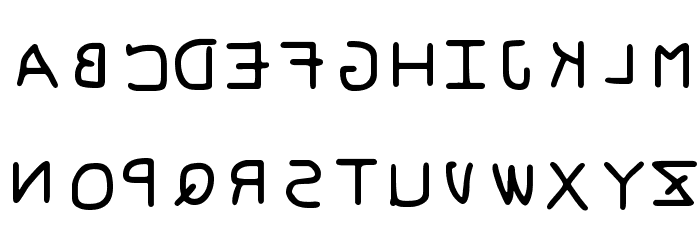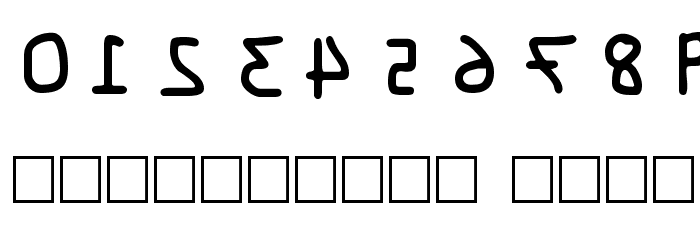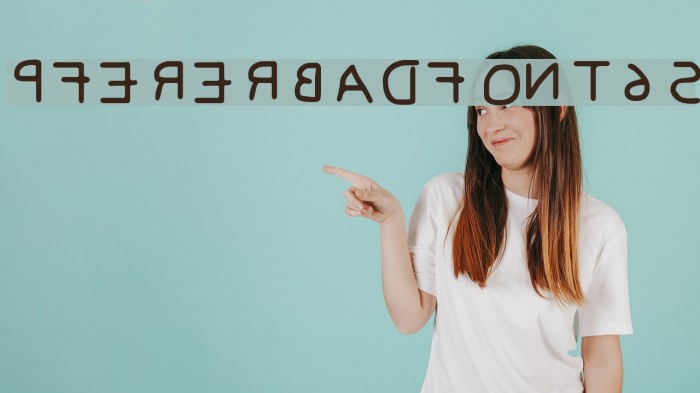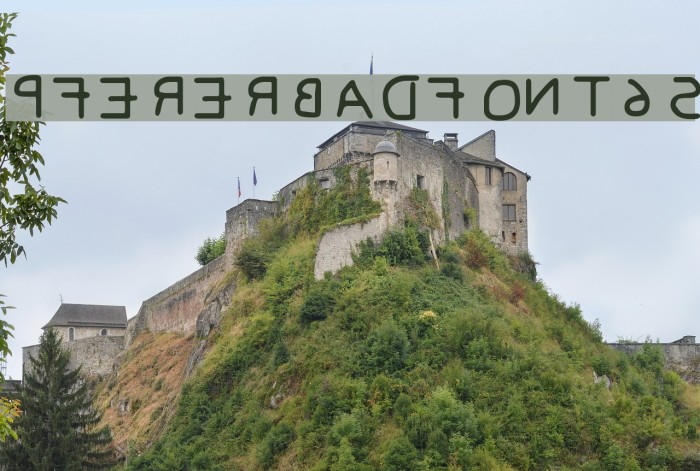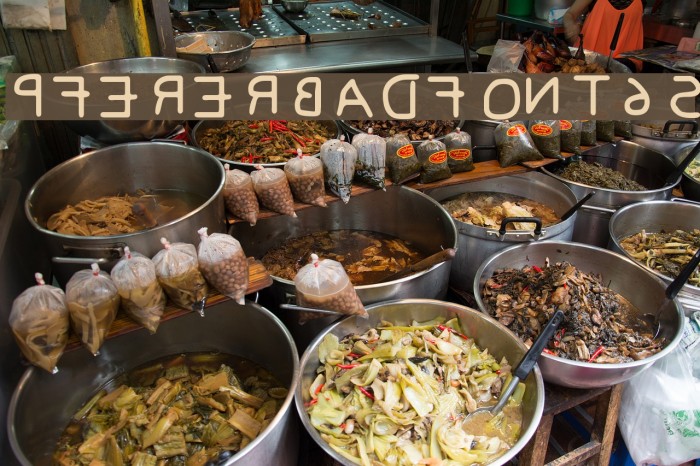
Pf_veryverybadfont6s Font
This font features a playful and quirky design with characters that appear to be mirrored or flipped. The letters and numbers have a rounded, informal style, giving them a unique and unconventional appearance. The font's distinctiveness lies in its reversed orientation, creating a sense of whimsy and fun. It maintains a consistent stroke width throughout, contributing to its casual and approachable feel. The special characters are also mirrored, adding to the overall theme of reflection and inversion. This font is ideal for creative projects that require a touch of humor and originality.
A playful, mirrored font with rounded, informal characters.
- Proposed Projects: Ideal for creative projects, children's books, playful branding, and unique posters.
- Overall Style: Quirky, Playful
- Use Case: Logos, Posters, Creative projects